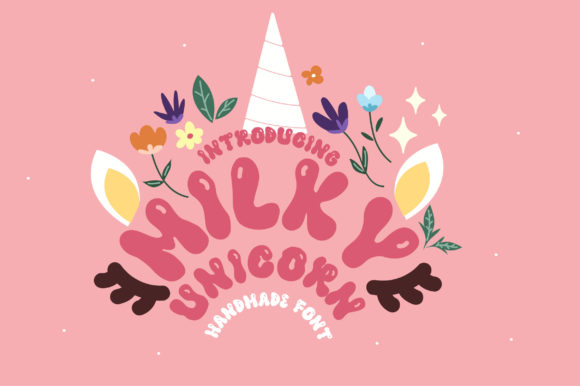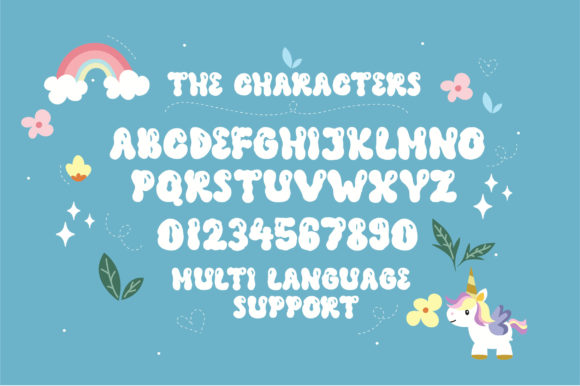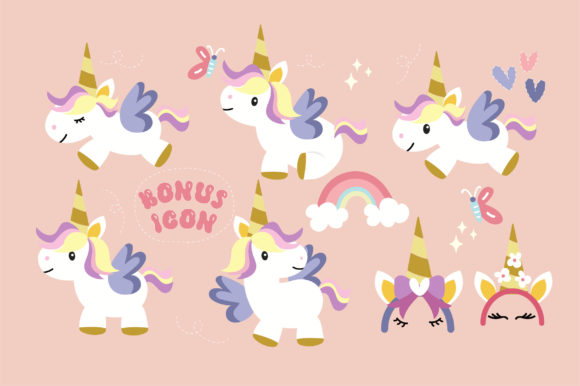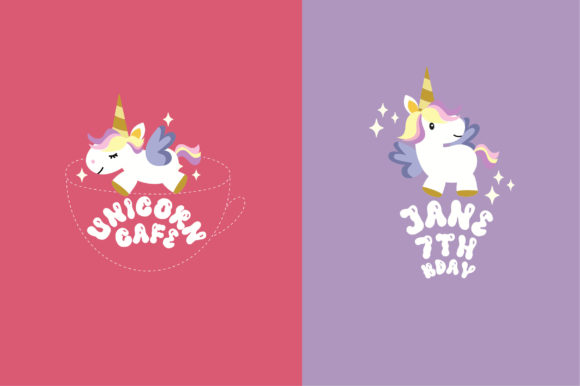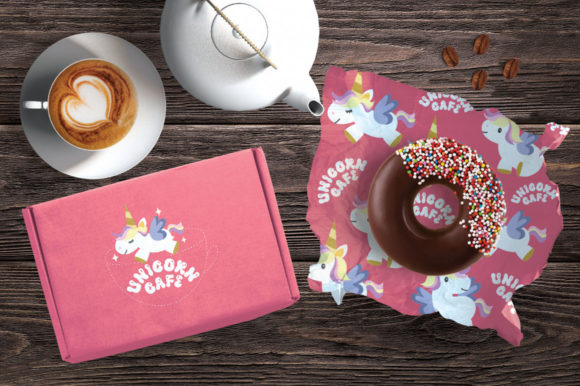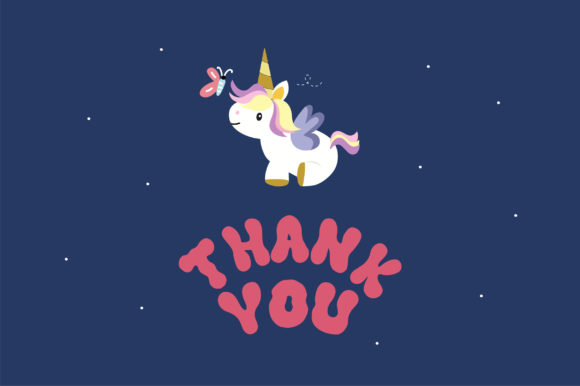
Milky Unicorn Font
About Milky Unicorn Font
The Milky Unicorn is a bold typeface which comes in 2 styles. It’s perfect for your own logos, texts, titles, posters and much more.
Included as a bonus are cute unicorn illustrations.